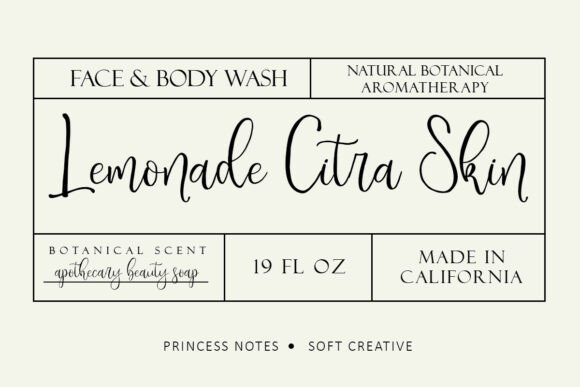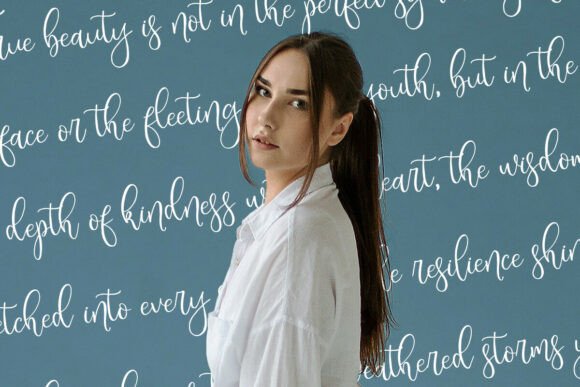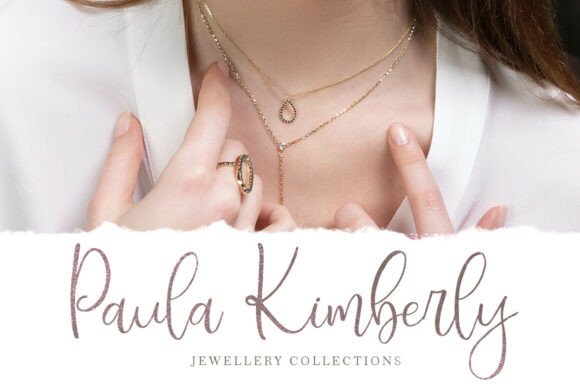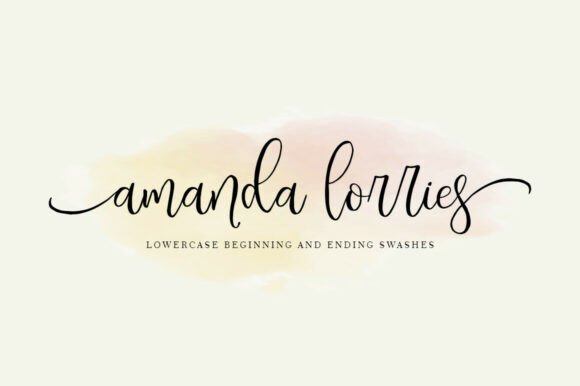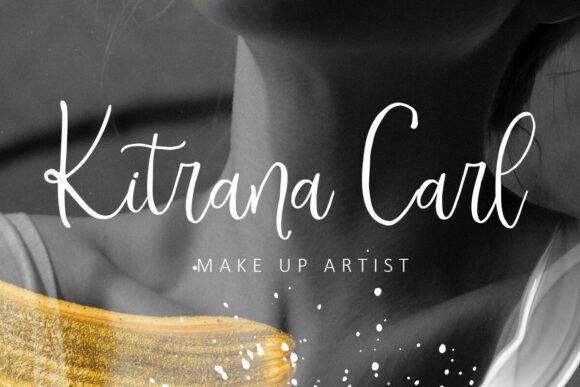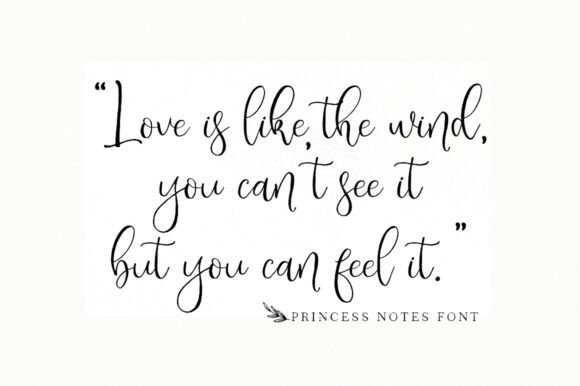
Introduction to Princess Notes Font
Introducing Princess Notes, a modern handwritten font with an ink texture, featuring swashes and ligature alternatives.
Princess Notes is great for feminine logos, wedding stationery, small business branding, and more .
Key Features of Princess Notes Font
Why Choose Princess Notes Font?
Princess Notes Font offers exceptional quality and versatility, making it a valuable addition to your design toolkit. Whether you’re creating for personal projects or commercial use, Princess Notes Font delivers professional results.